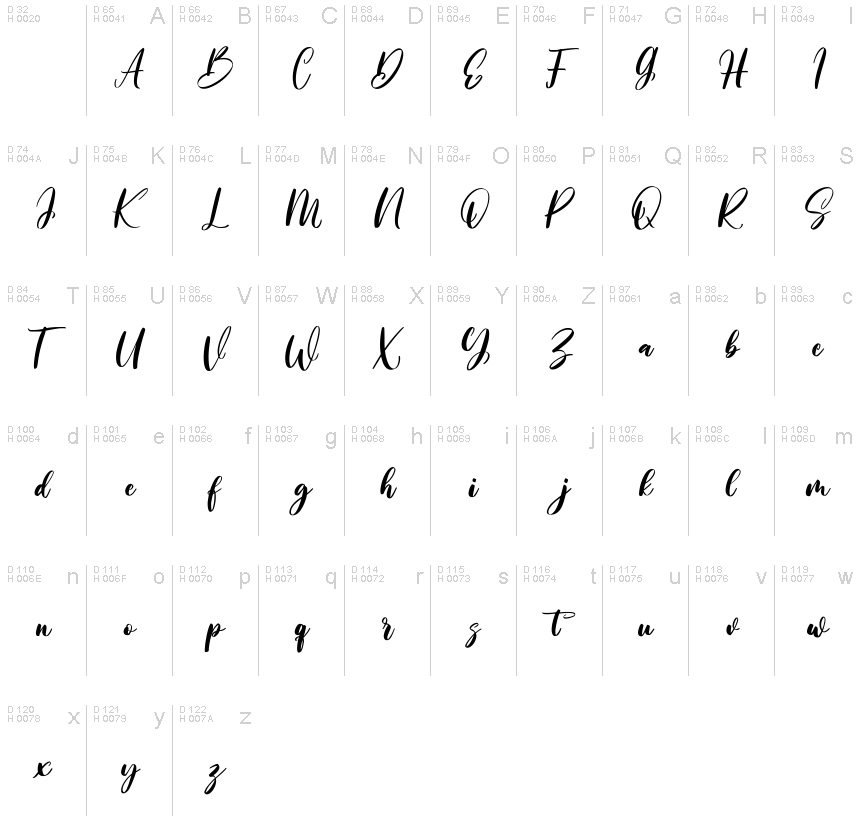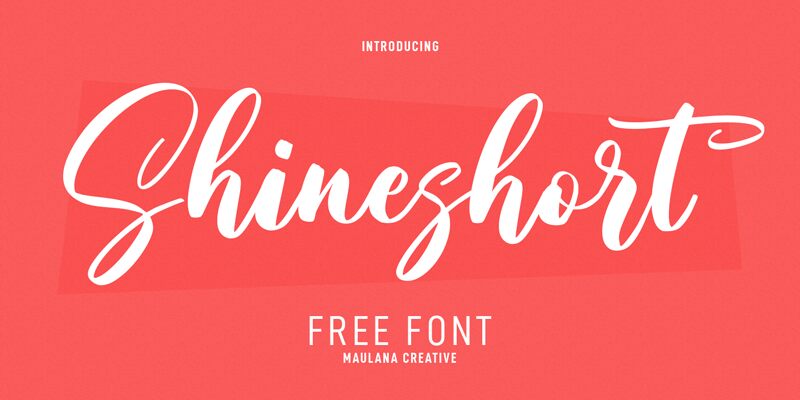
Shineshort Free Font Regular
Shineshort font designed by Maulana Creative projects a delicate, informal, and flowing handwriting style that is readable and smart-looking. The characters have beautiful curves that flow like waves within each word and display an elegant visual presence. The clean yet dynamic design gives a fashionable tone to every text written in Shineshort font.
A free handwritten font like Shineshort would perfectly fit into children’s books, storybooks, comics, doodles, learning materials, party flyers or brochures and so much more! Holiday games posters, artistic magazines; even business cards can be vividly designed with this fun font.